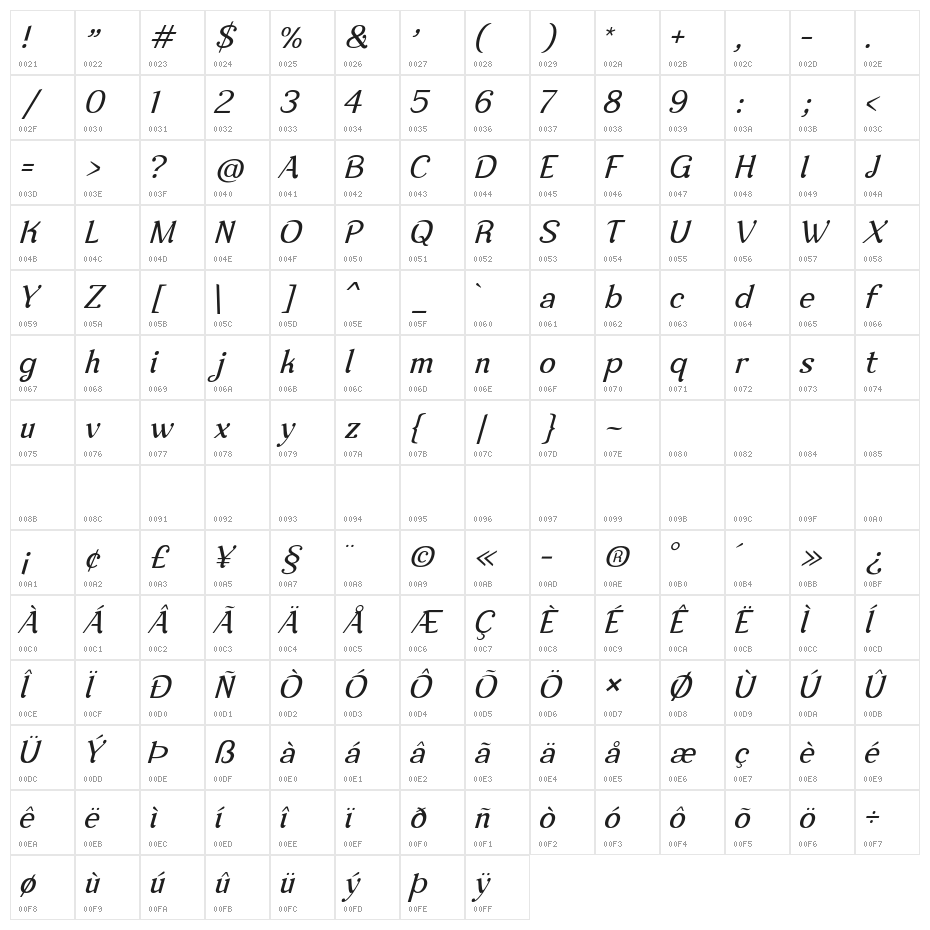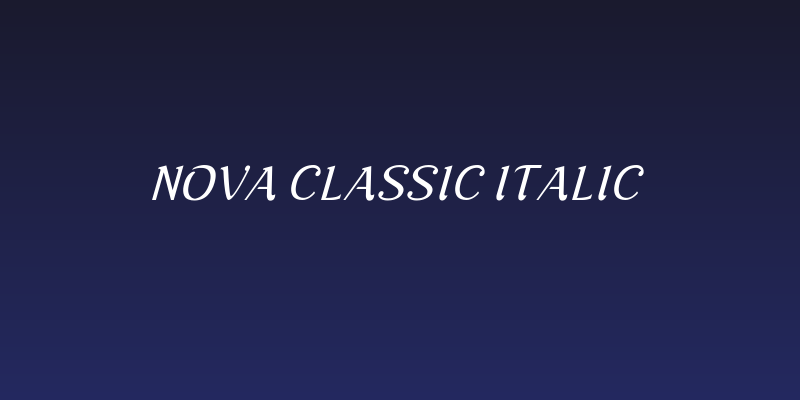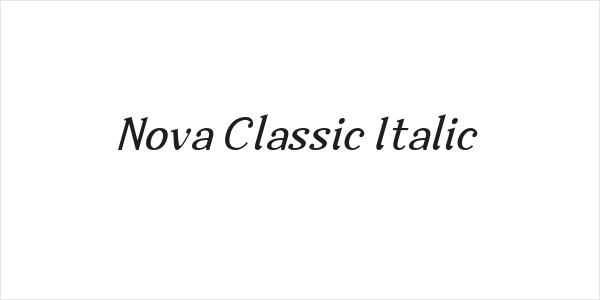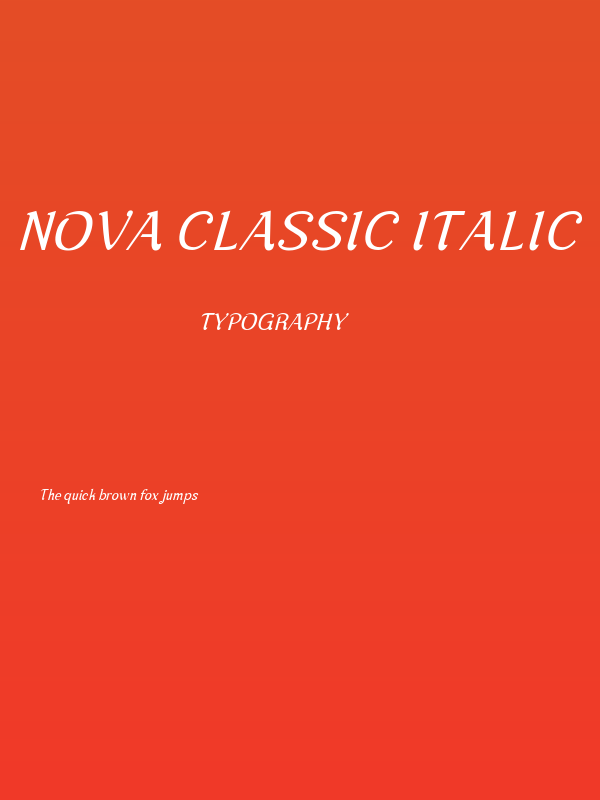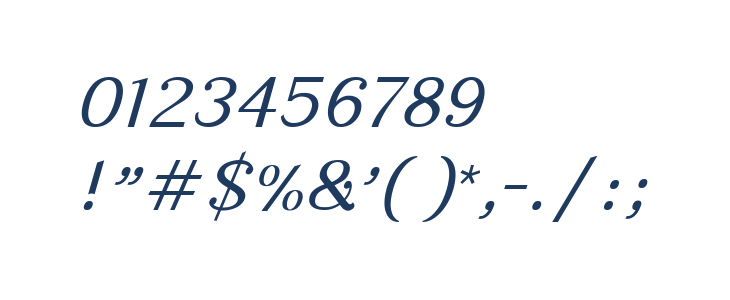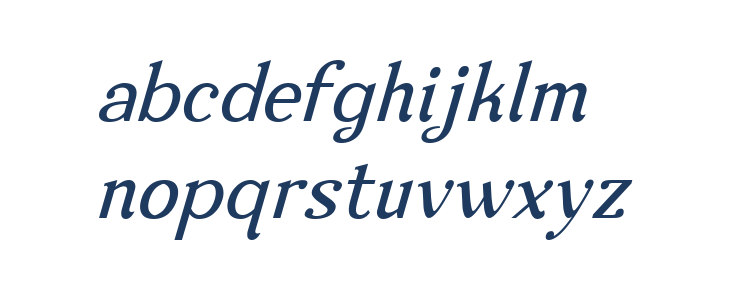
Nova Classic Italic Font
Nova Classic Italic Description
This elegant typeface features a classic italic style with smooth, flowing curves and a refined appearance. The uppercase letters are slightly taller than the lowercase, providing a balanced and harmonious look. The numerals are clear and distinct, maintaining the font's sophisticated feel. Special characters are well-integrated, ensuring versatility in various applications. The font's overall design exudes a timeless charm, making it suitable for both traditional and modern contexts.
| Proposed Projects | Ideal for wedding invitations, formal event programs, luxury branding, and editorial design. |